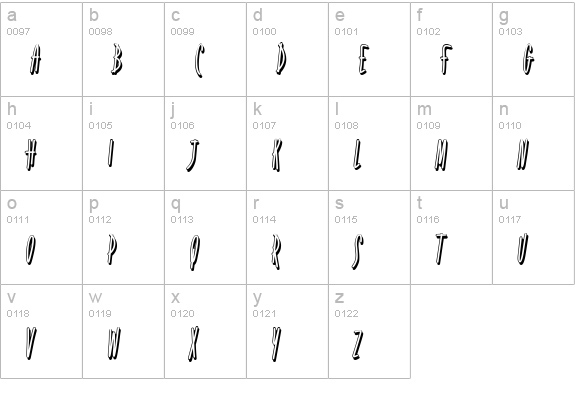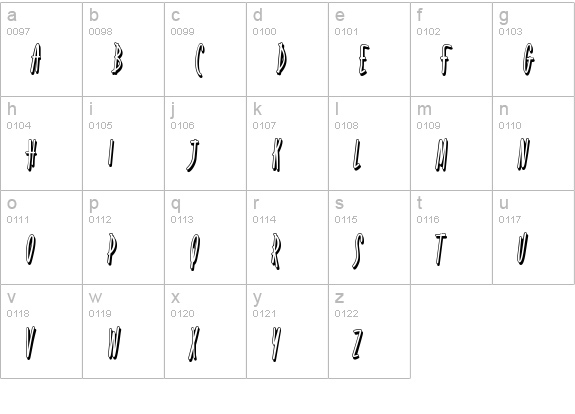
Fidelity Hour BTN Shadow Font Details
Fidelity Hour BTN Shadow font is a bold and striking typeface that exudes a sense of modernity and sophistication. With its clean lines and sharp edges, this font is perfect for making a statement in any design project. The shadow effect adds depth and dimension, making text stand out on the page. What's even better is that Fidelity Hour BTN Shadow font is available for free download at FontsMarket.com. This means you can easily add this stylish font to your collection without breaking the bank. Whether you're working on a logo, poster, or website design, this versatile font is sure to make a lasting impression. Elevate your projects with Fidelity Hour BTN Shadow font today!